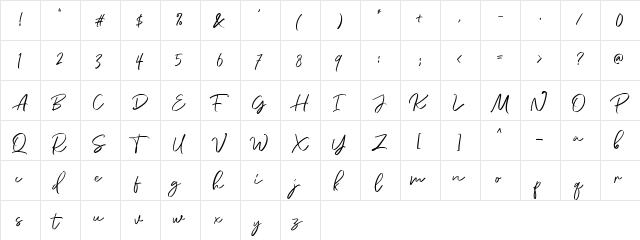
DianaWebber Script DEMO Solid
Design Context for DianaWebber Script DEMO Typeface
DianaWebber Script DEMO flows with the natural rhythm of handwritten lettering, making it ideal for designs that call for warmth and personal expression.
Font Pairing: Combine DianaWebber Script DEMO with a simple geometric sans for maximum contrast — the tension between flowing curves and clean structure is a classic typographic pairing.
Pro Tip: Use DianaWebber Script DEMO for short runs of text — names, titles, or taglines. Extended body copy in script faces tires the eye quickly.